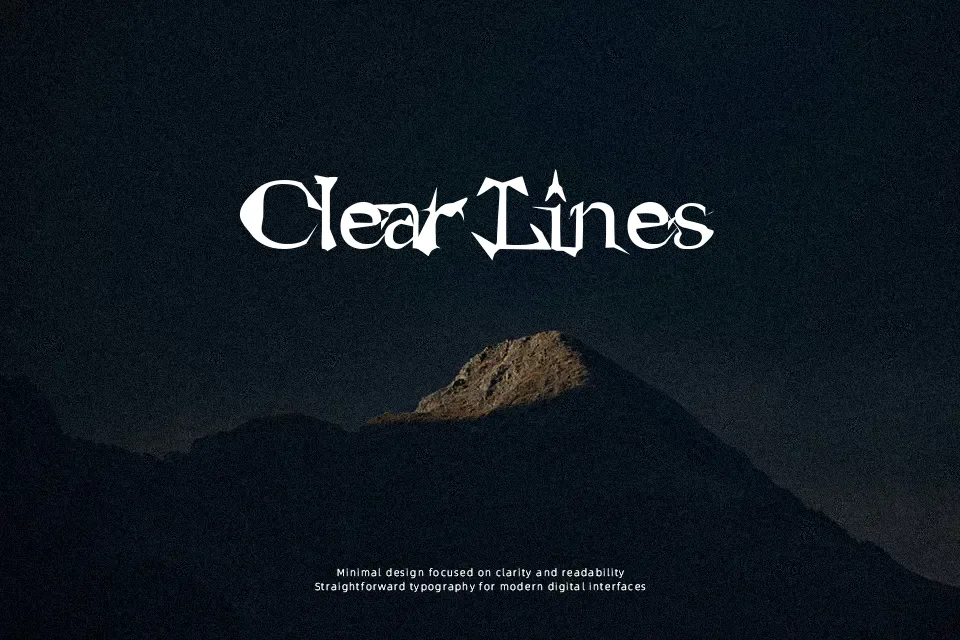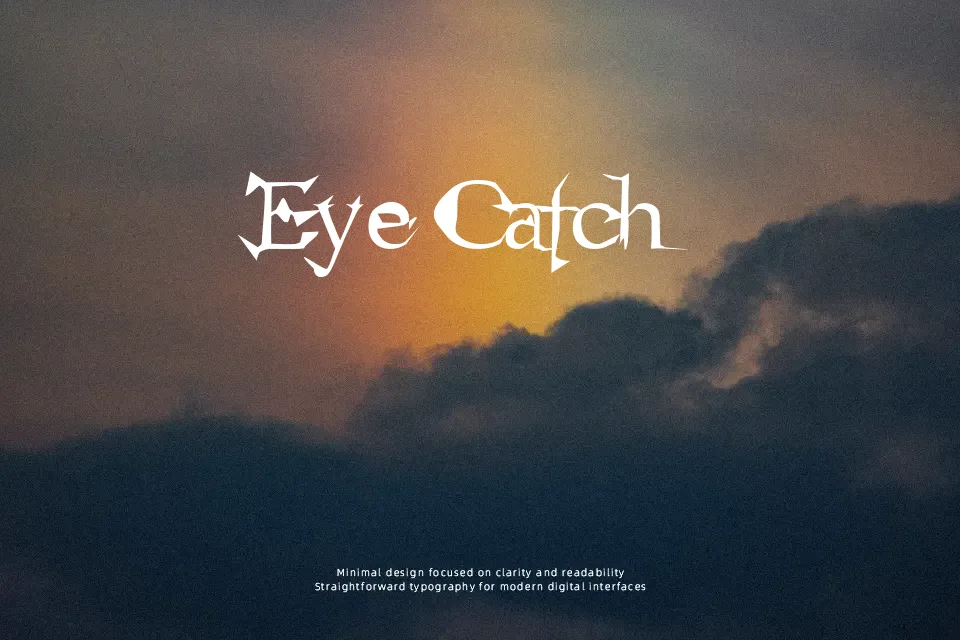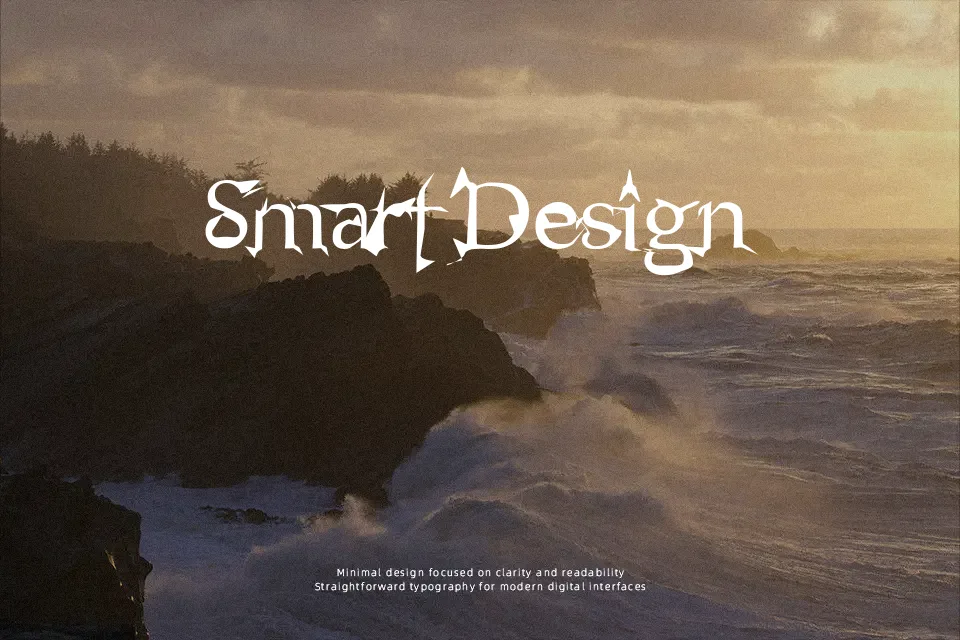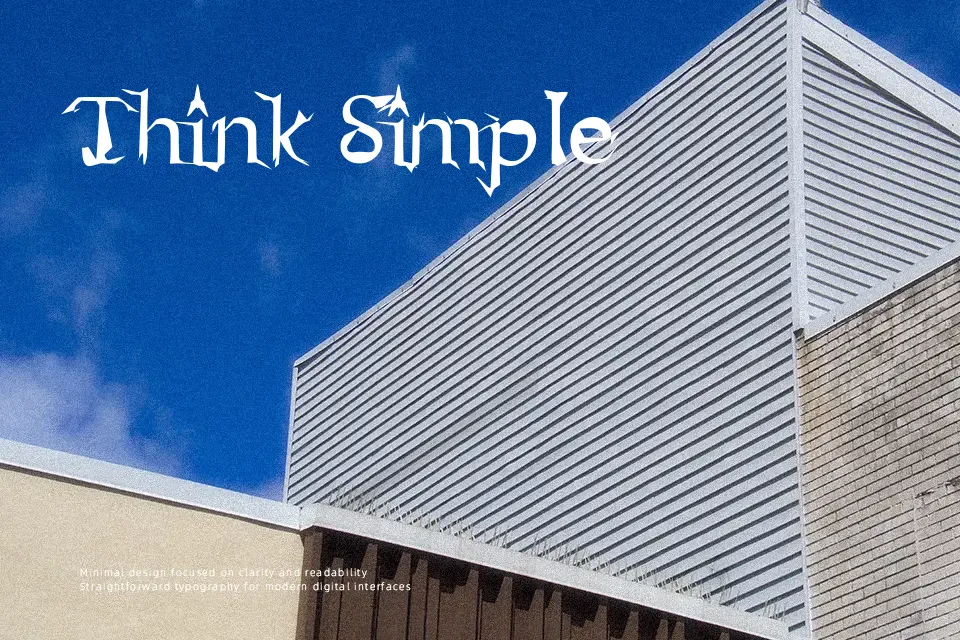
Alien Font
Alien is a heavy display typeface with broken strokes, sharp angles, and irregular counters that give each letter a damaged, hostile look. The spacing is tight and compact, so words feel dense and confrontational rather than airy or neutral. Its style leans decorative and dramatic, suited to horror thumbnails, sci-fi game titles, or event posters where the text can be large and sparse on the page. It struggles in body copy or small captions because the distressed details reduce legibility and quickly tire the eye. Used thoughtfully at headline sizes, it adds tension and menace; pushed into longer reading or formal branding, it feels noisy and unrefined.
– horror movie or game title graphics
– sci-fi or alien-themed event posters
– edgy YouTube or streaming thumbnails
– long paragraphs or body text
– corporate or formal branding
– small UI labels or navigation text
Perfect for film, gaming, and headline, with a bold and decorative style.